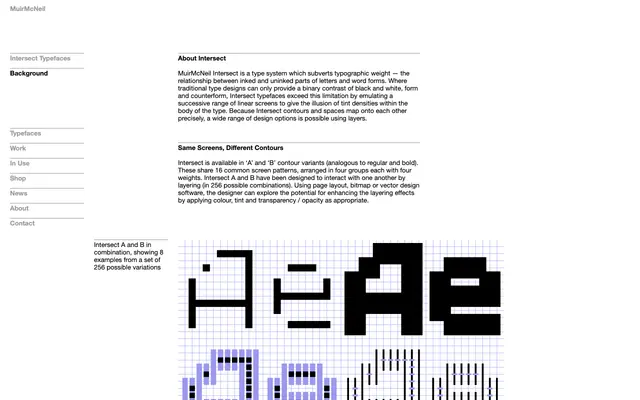
A layered type system from MuirMcNeil that replaces conventional weight with successive linear screen patterns to create the illusion of tonal density within letterforms.
Two contour variants, A and B, share 16 screen patterns arranged in four groups of four weights, and are designed to be overlaid in up to 256 combinations. Where standard typefaces offer only a binary contrast of form and counterform, Intersect introduces an intermediate range of apparent tints by mapping contours and screen spacings precisely against one another. Colour, transparency and opacity applied in layout or vector software extend the design possibilities further.
Intersect is a display-oriented type system built around layered linear screens that simulate tonal density within letterforms, subverting conventional weight relationships through optical illusion rather than stroke variation.